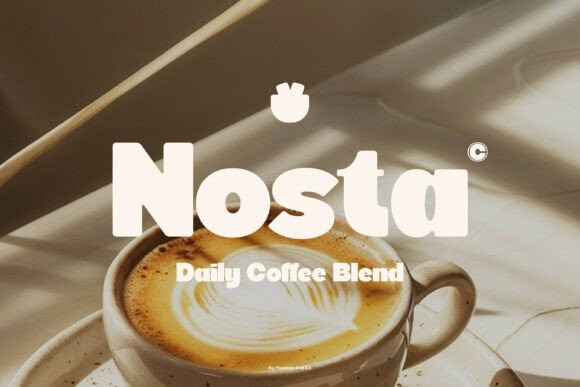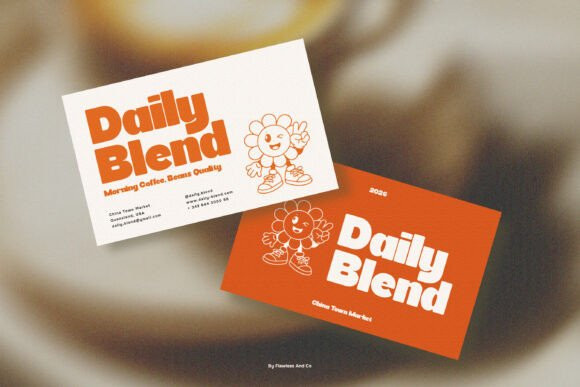
Crosa Font
Crosa Font is a unique and cheerful bold display font designed to bring fun, energy, and personality into your typography. With its bold letterforms, playful shapes, and lively character, Crosa creates an eye-catching visual style that instantly stands out. The font features a strong structure combined with creative and expressive details, making it both impactful and enjoyable to read. Its cheerful appearance makes it perfect for designs that aim to feel friendly, vibrant, and full of life.